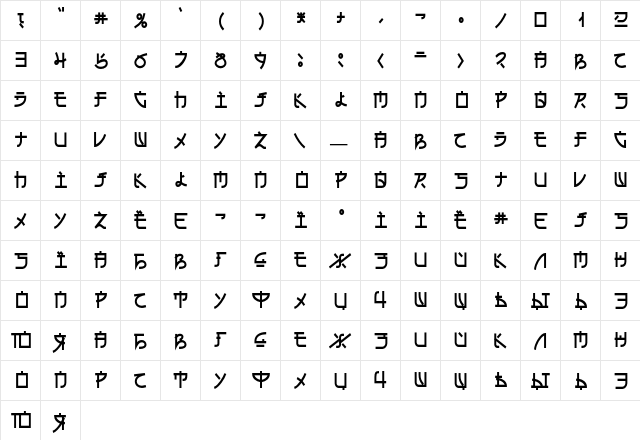
DS EhC Regular
Design Context for DS EhC Typeface
DS EhC is a composed and adaptable typeface that performs quietly and consistently across a wide range of design contexts.